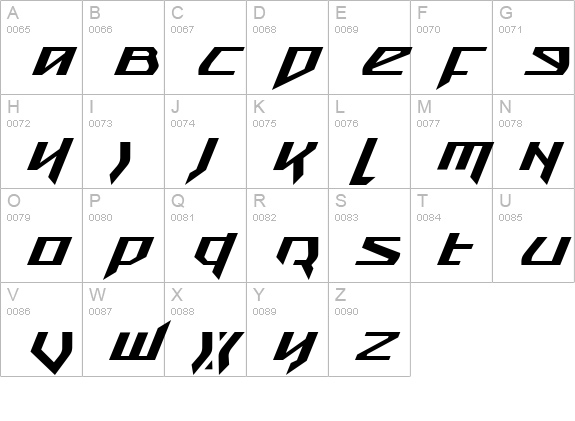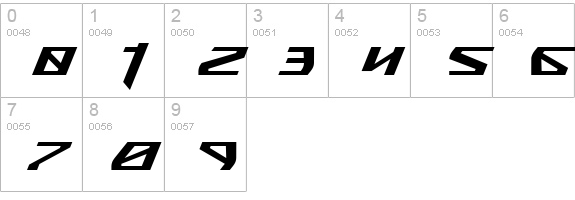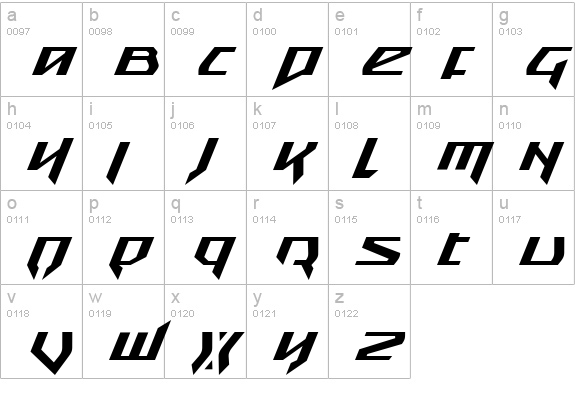
Snubfighter Italic is a distinctive, italic variant in the Snubfighter typeface family \xE2\x80\x94 well suited to design and typography projects.
The Snubfighter Italic font is a sleek and modern typeface that exudes elegance and sophistication. Its slanted design adds a touch of dynamism to any text, making it perfect for projects that require a stylish and contemporary look. With its clean lines and distinct curves, Snubfighter Italic is sure to make a bold statement in any design. What's even better is that Snubfighter Italic font is available for free download at FontsMarket.com. Now you can easily enhance your projects with this eye-catching font without breaking the bank. Don't miss out on the opportunity to add a touch of class to your designs with the Snubfighter Italic font, available for free at FontsMarket.com.